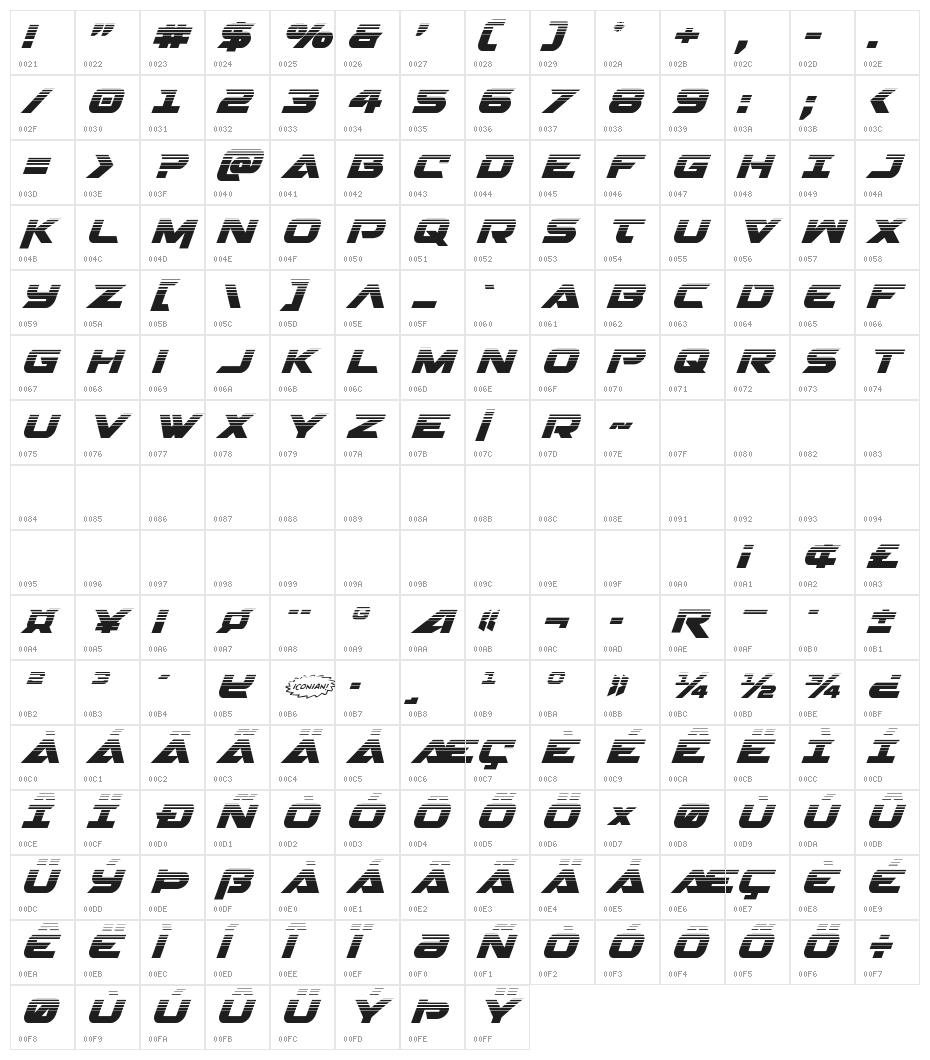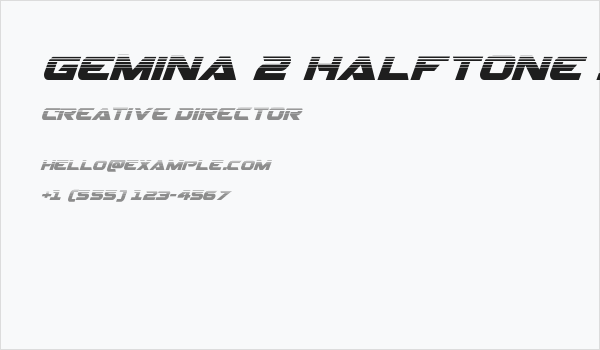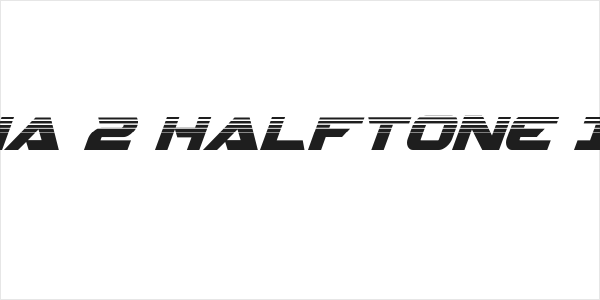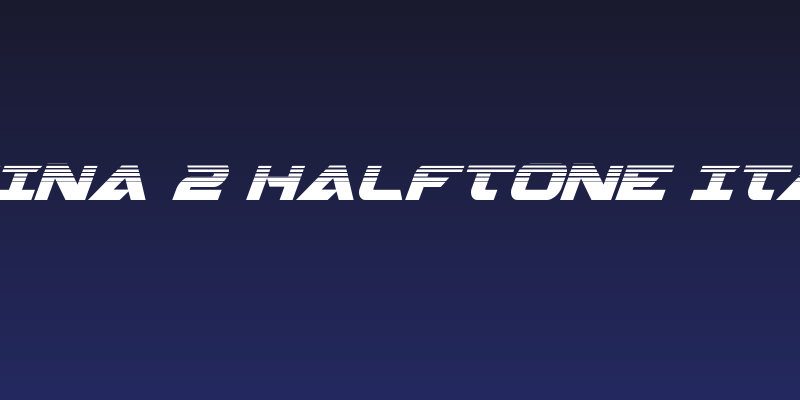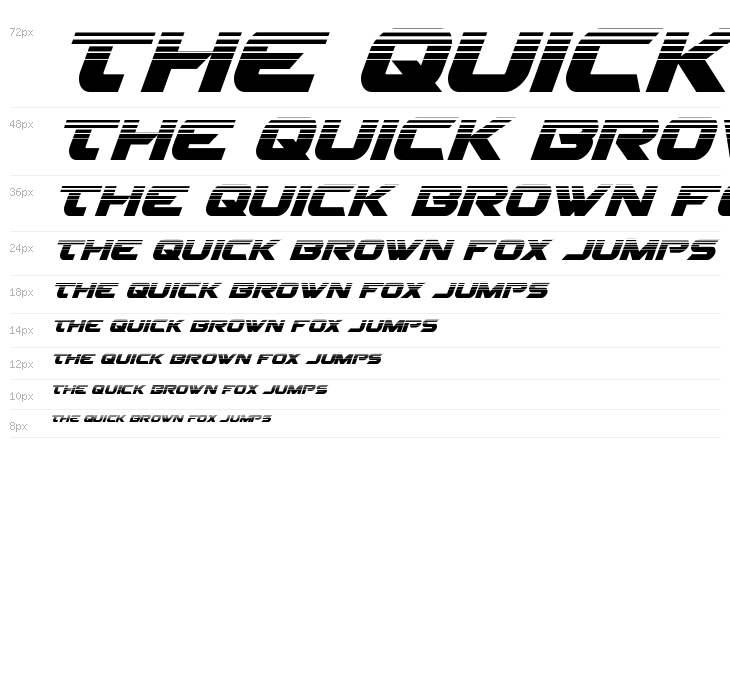
Gemina 2 Halftone Italic Font
Gemina 2 Halftone Italic Description
This font features a bold, italicized style with a distinctive halftone effect that gives it a dynamic and futuristic appearance. The characters are designed with a slanted orientation, enhancing the sense of motion and speed. The halftone pattern is integrated into the strokes, creating a unique visual texture that stands out. The font maintains a consistent weight throughout, with sharp angles and clean lines that contribute to its modern aesthetic. The spacing between characters is tight, emphasizing the compact and cohesive look of the text. This font is ideal for projects that require a bold and eye-catching design, such as posters, logos, and headlines.